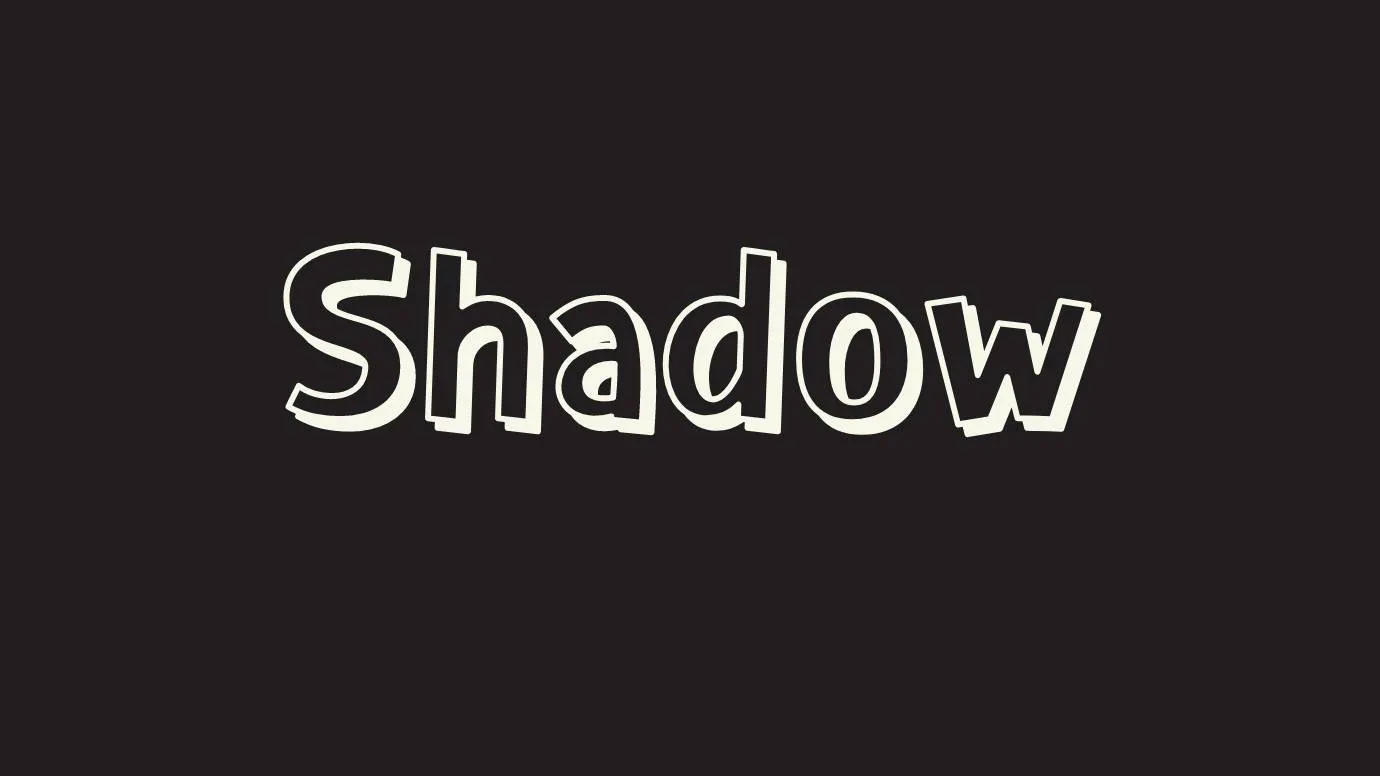
Shadow Font Family is a modern style texture and has a cartoon fancy type look. This classic typography lies in the category of the fancy family of fonts. Toko Laris Djaja is the main and real designer of this font family.
Shadow Font